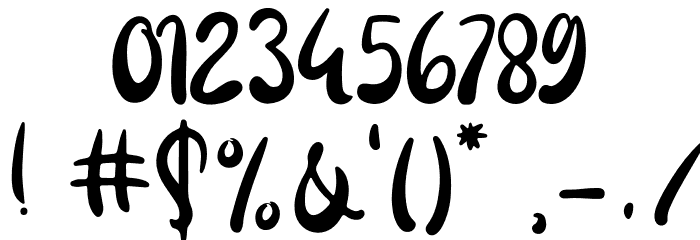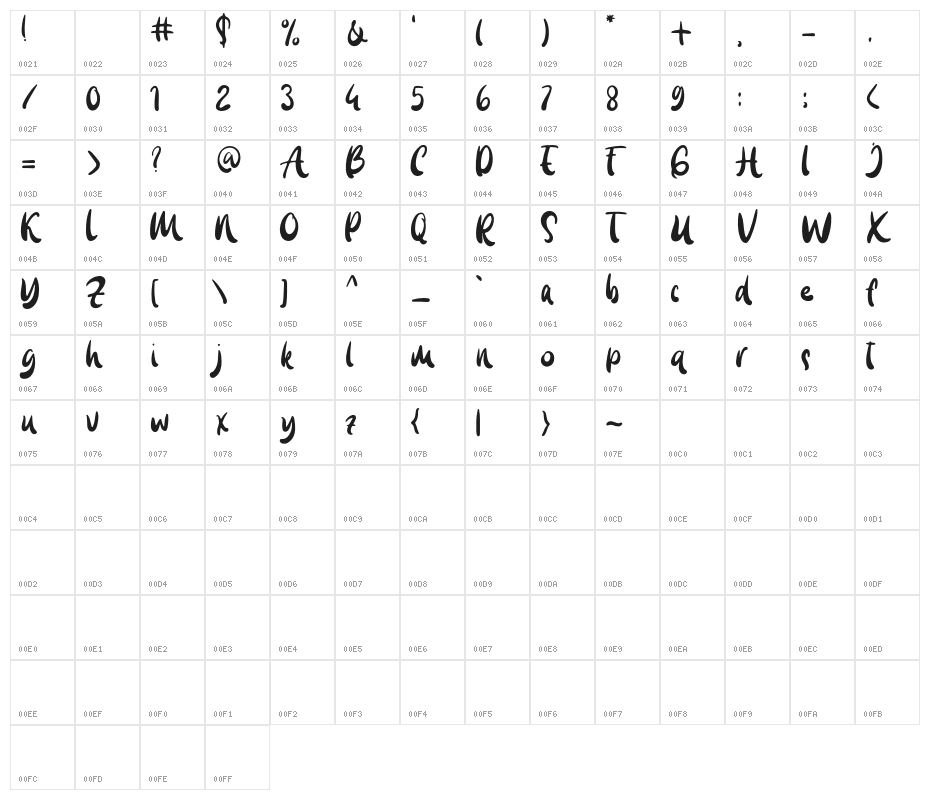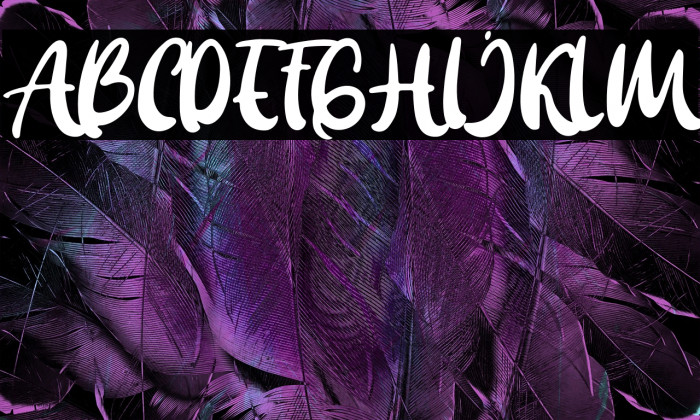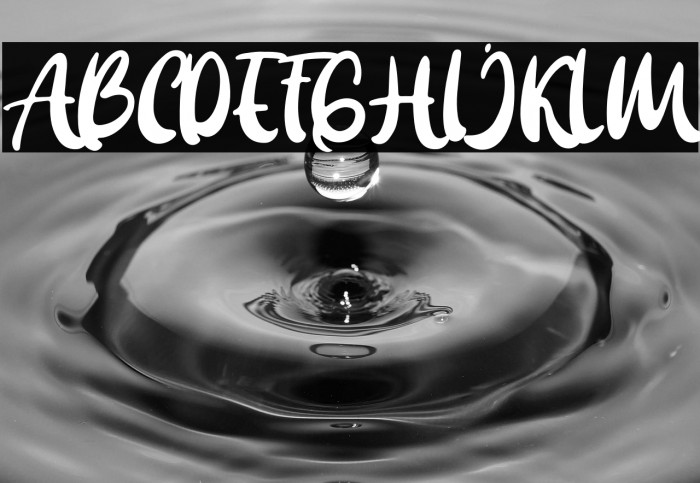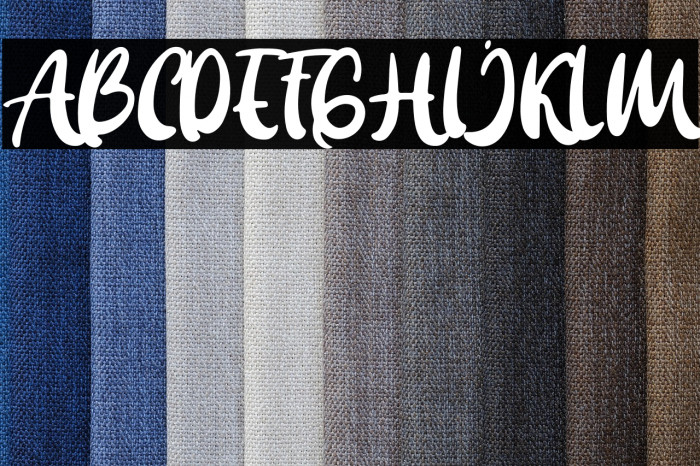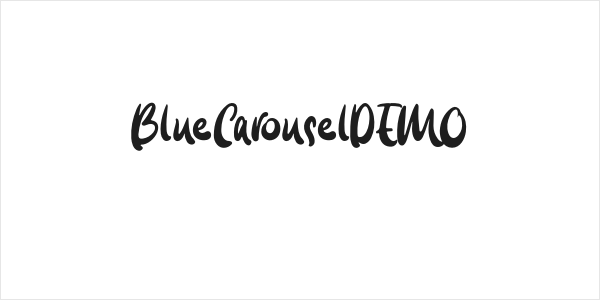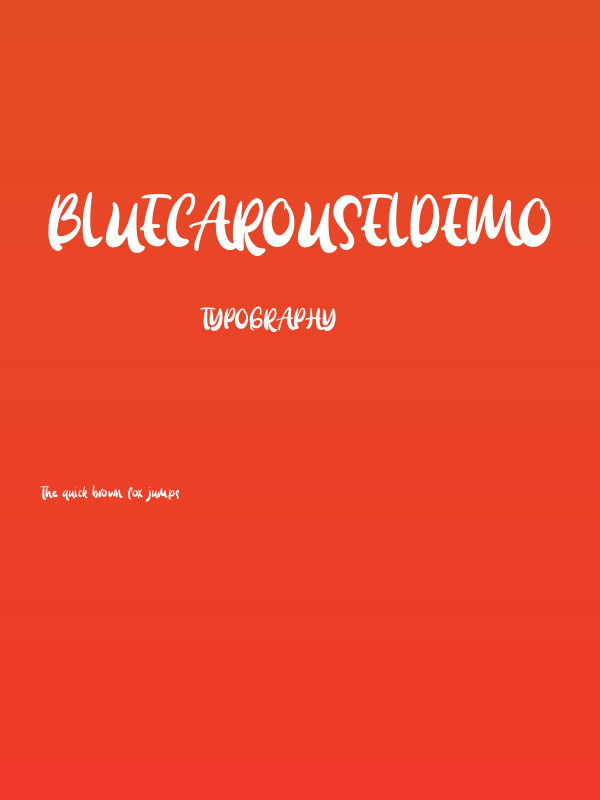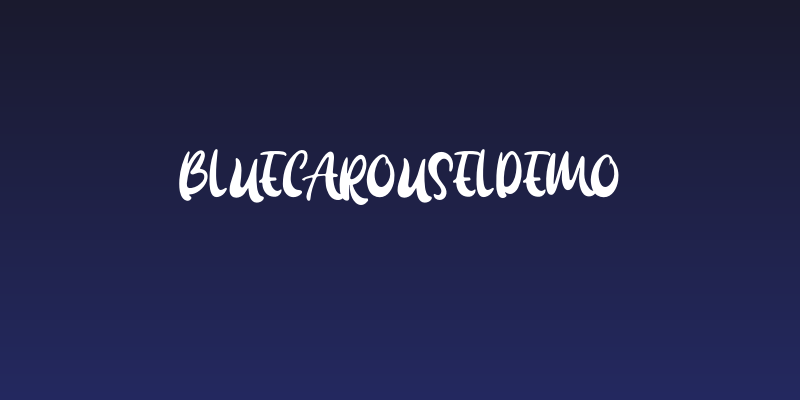
BlueCarouselDEMO Font
BlueCarouselDEMO Description
This font features a bold, expressive style with a handwritten appearance. The characters are fluid and dynamic, showcasing a playful and artistic flair. The strokes are thick and consistent, giving it a strong presence. The uppercase and lowercase letters maintain a cohesive look, with rounded edges and a slight slant that adds to its casual charm. Numbers and special characters are equally bold, ensuring readability and visual impact. This font is ideal for projects that require a personal touch or a creative, informal vibe.
| Proposed Projects | Perfect for greeting cards, invitations, posters, and branding projects that seek a personal and artistic touch. |